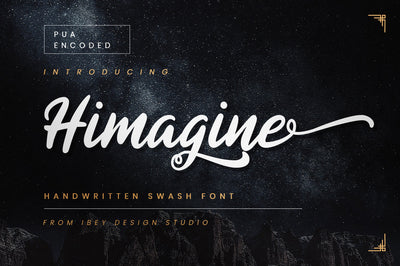
Himagine - Handwritten Swash Font
Himagine Handwritten Swash Font is a lovely Swash font featuring charming, playful characters that seem to dance along the baseline. Add it to your most creative ideas, and notice how it makes them stand out!
Himagine Handwritten Swash Font is PUA encoded which means you can access all glyphs and swashes with ease!